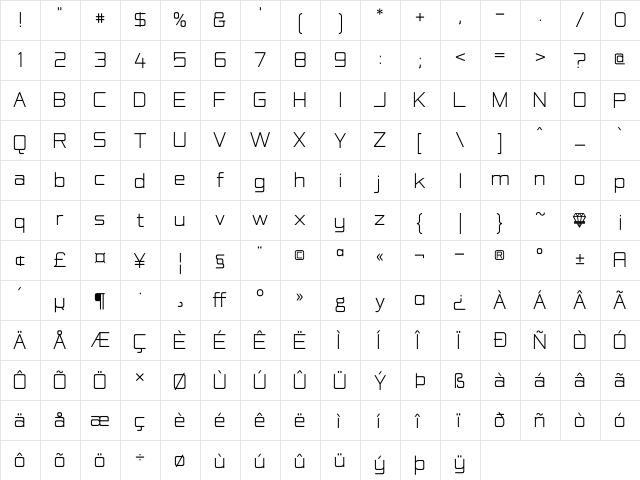
Etched Fractals Regular
Design Context for Etched Fractals Typeface
Etched Fractals is a composed and adaptable typeface that performs quietly and consistently across a wide range of design contexts.